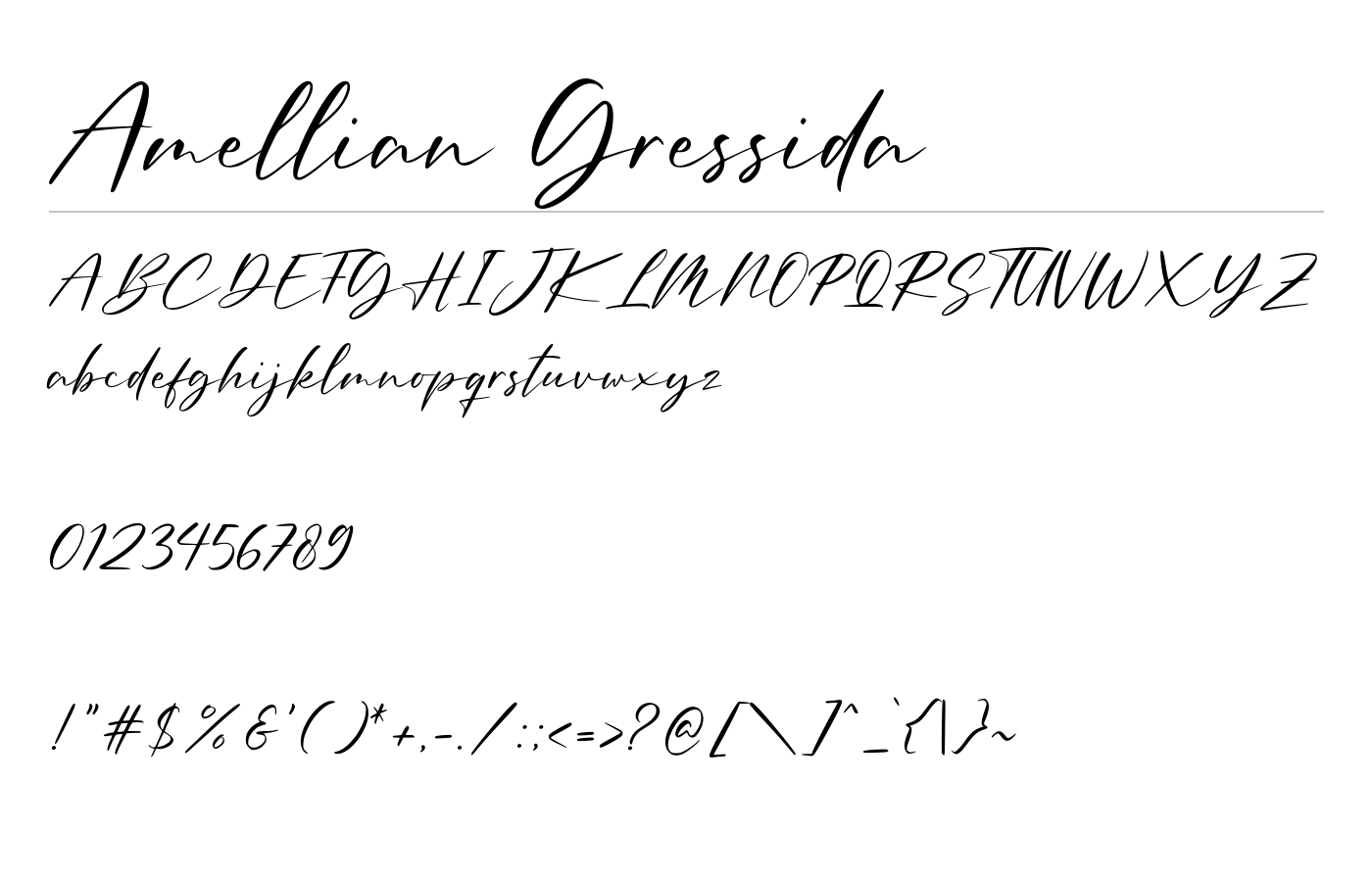
Amellian Gressida is a delicate, modern script font with a graceful, handwritten feel that combines elegance and a casual touch. Its thin strokes and slightly slanted letterforms convey a sense of sophistication and fluidity, making it ideal for wedding invitations, branding, and elegant editorial projects. This font works best in display settings where its refined style can add a personal and stylish flair.
Amellian Gressida Font
About Amellian Gressida Font